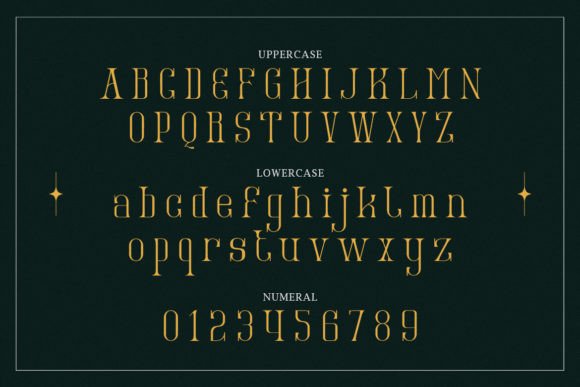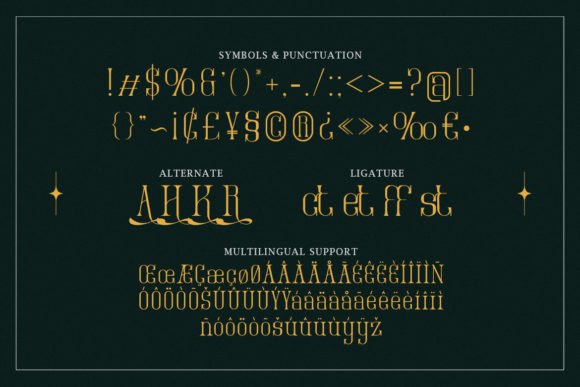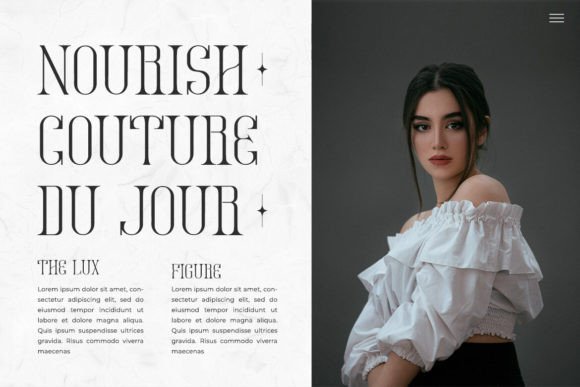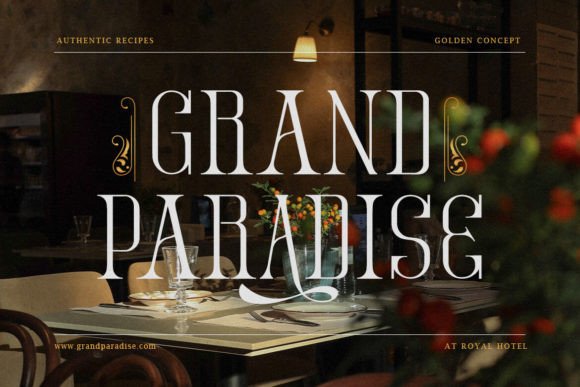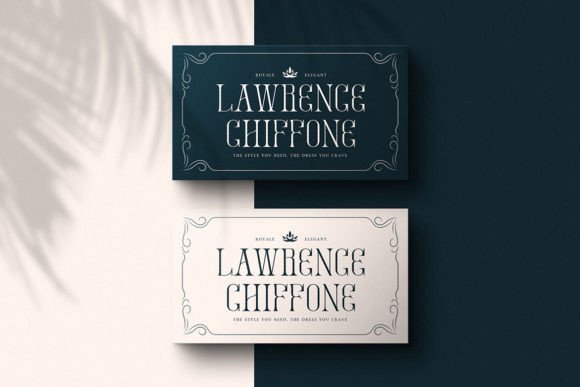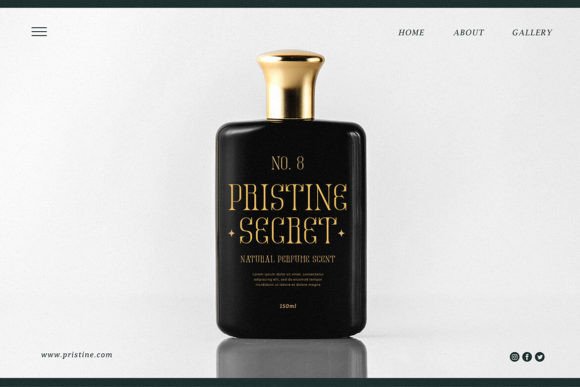
Introduction to Riman Font
As a designer, there’s nothing quite like the thrill of bringing a creative project to life. You’ve poured your heart and soul into every detail, from the color palette to the typography. And then, it hits you – the perfect font that elevates your design to the next level. For many of us, that moment of epiphany comes with the introduction of a new font, one that not only reflects our brand’s personality but also adds a touch of sophistication to our work.
Enter Riman Font – a game-changing addition to your design arsenal. With its sharp serifs and compact letterforms, Riman Font is the ultimate tool for making a bold statement in your designs. Whether you’re working on a high-quality branding project or creating a stunning poster, Riman Font’s sleek lines and modern appeal are sure to impress.
Key Features of Riman Font
- High-quality design for creative projects, ensuring a professional look and feel.
- Features a transparent background, allowing for easy layering and customization in design projects.
- Designed to be highly legible, with clear and crisp typography that is perfect for both digital and print materials.
- Available in a range of sizes, including font sizes up to 72pt, making it suitable for a variety of design applications.
- Resolution-independent, ensuring that the font remains clear and sharp at any resolution, from 72dpi to 300dpi and beyond.
Honest Review: Riman Font
I recently came across the Riman Font while searching for a free download to enhance my creative project. At first glance, I was impressed by its high quality and sleek design.
- ✨ Unique and modern style that sets it apart from other fonts
- ✨ High resolution, making it perfect for digital use
- ✨ Transparent background, allowing for easy customization
- ⚠️ Limited character set, which may not be suitable for extensive text-based projects
- ⚠️ No bold or italic versions available, which may limit its versatility
Overall, I’m pleased with the Riman Font as a design resource. Its modern style and high quality make it a great addition to any creative project. While it may not be perfect, its strengths outweigh its limitations, making it a solid choice for designers looking for a unique font.
Getting the Most Out of Riman Font
For tips on getting the most out of Riman Font, try experimenting with different font sizes, colors, and styles. You can also use Riman Font in combination with other design elements to create a unique and eye-catching design. Additionally, consider using a transparent background to make your design stand out.
Riman Font is commonly used in creative projects such as logos, brochures, and business cards. It is also used in digital designs such as social media graphics and presentations. With its high-quality design and transparent background, Riman Font is a versatile design resource that can be used in a variety of creative applications.